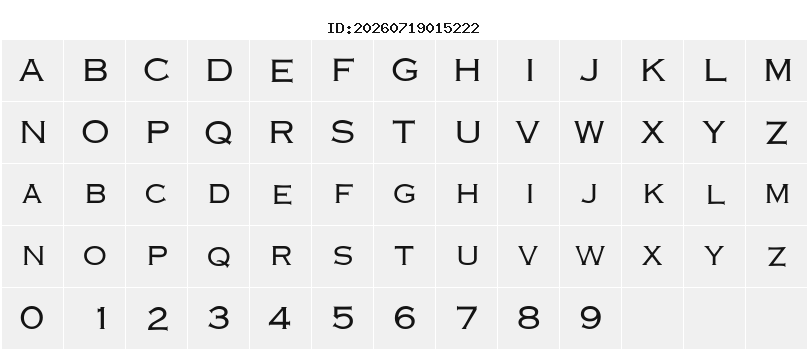
• Font Name: CoolblueSecondSmall
• Full Font Name: CoolblueSecondSmall Bold
About CoolblueSecondSmall.ttf
CoolblueSecondSmall.ttf is a modern, elegant sans-serif font designed for ultimate readability and visual harmony. Perfect for branding, headlines, web design, and print materials.